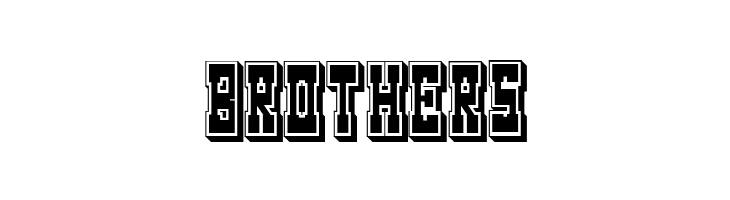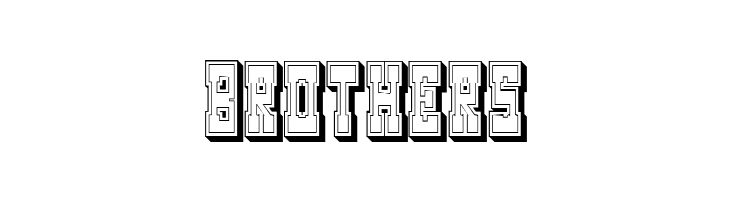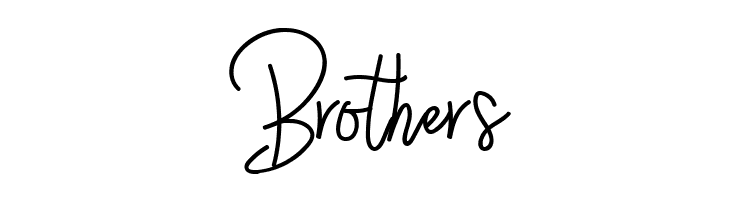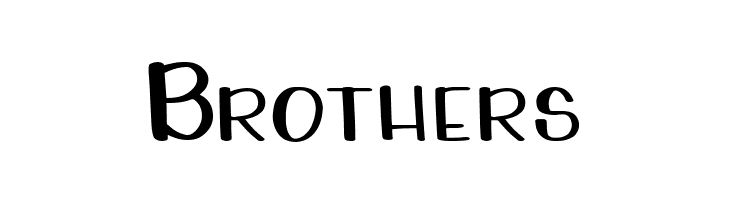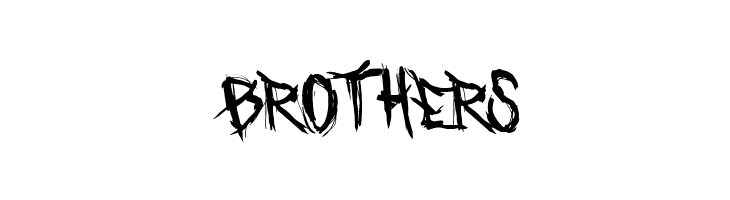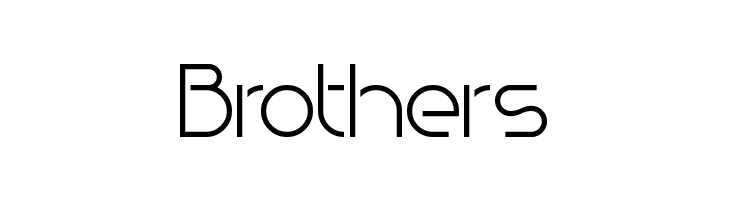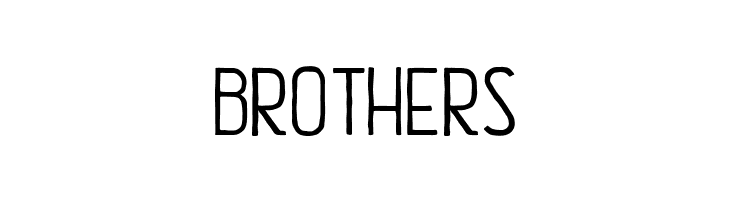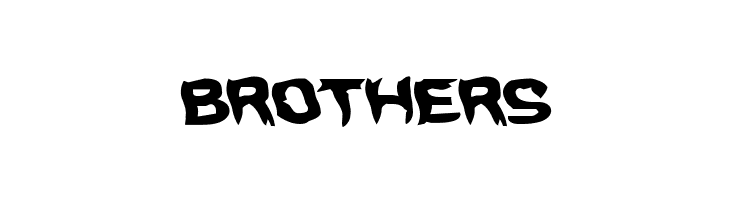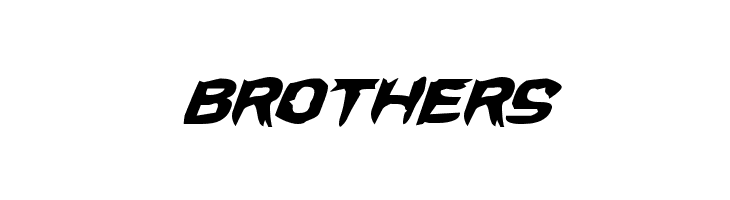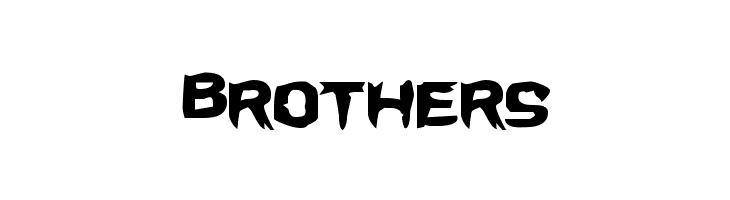
A modern gothic font with tall, narrow letterforms and a hand-drawn feel.
An elegant and decorative script font with flowing cursive letters and intricate flourishes.
A modern, geometric font with clean lines and a minimalist style.
An elegant, cursive script font with decorative swirls and loops.
A bold, geometric slab serif font with Western and Eastern influences.
A bold, 3D outline font with a Western-inspired style.
A bold, decorative font with a Western theme and three-dimensional appearance.
A flowing, cursive font with elegant loops and a handwritten style.
A geometric, angular font with a modern and futuristic style.
A bold, distressed stencil font with a vintage, industrial feel.
A playful, handwritten font with smooth, rounded edges and a casual, friendly appearance.
A chaotic, jagged font with a raw, hand-drawn appearance.
A bold, expressive script font with dynamic curves and a modern style.
A bold, 3D font with jagged edges and a playful, dynamic style.
A bold, 3D italic font with sharp, angular edges and a dynamic style.
A bold, 3D font with sharp angles and a rugged, edgy style.
A bold, jagged, and condensed font with sharp edges for dramatic impact.
A bold, condensed, and italic font with sharp, angular edges and high contrast.
A bold, jagged, and aggressive decorative font with sharp edges.
A bold, dynamic, and italic decorative font with sharp, angular edges.
A bold, italicized font with sharp, angular edges and a distressed look.
A bold, jagged font with sharp, angular cuts and an edgy appearance.
A bold, angular font with a dynamic, slightly italicized style.
A bold, jagged font with a graffiti-inspired, energetic style.
A bold, jagged font with sharp, angular cuts and a distressed appearance.
A bold, jagged, semi-italic font with a dynamic and aggressive style.
A bold, jagged font with a rugged, hand-carved aesthetic.
A bold, staggered italic font with a jagged, edgy style.
A bold, staggered, and italicized font with sharp, angular edges.
A bold, italicized font with sharp, angular edges and a dynamic style.
A bold, jagged font with sharp, torn edges for a dynamic look.